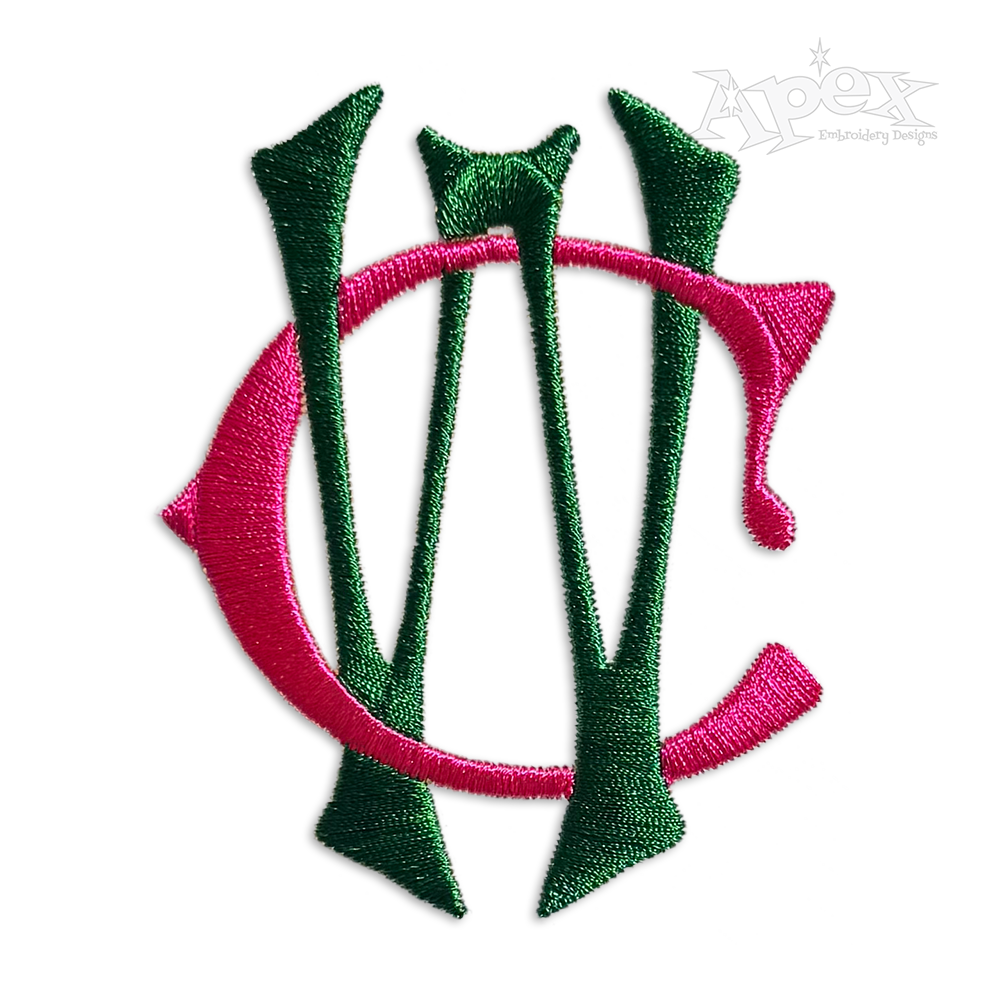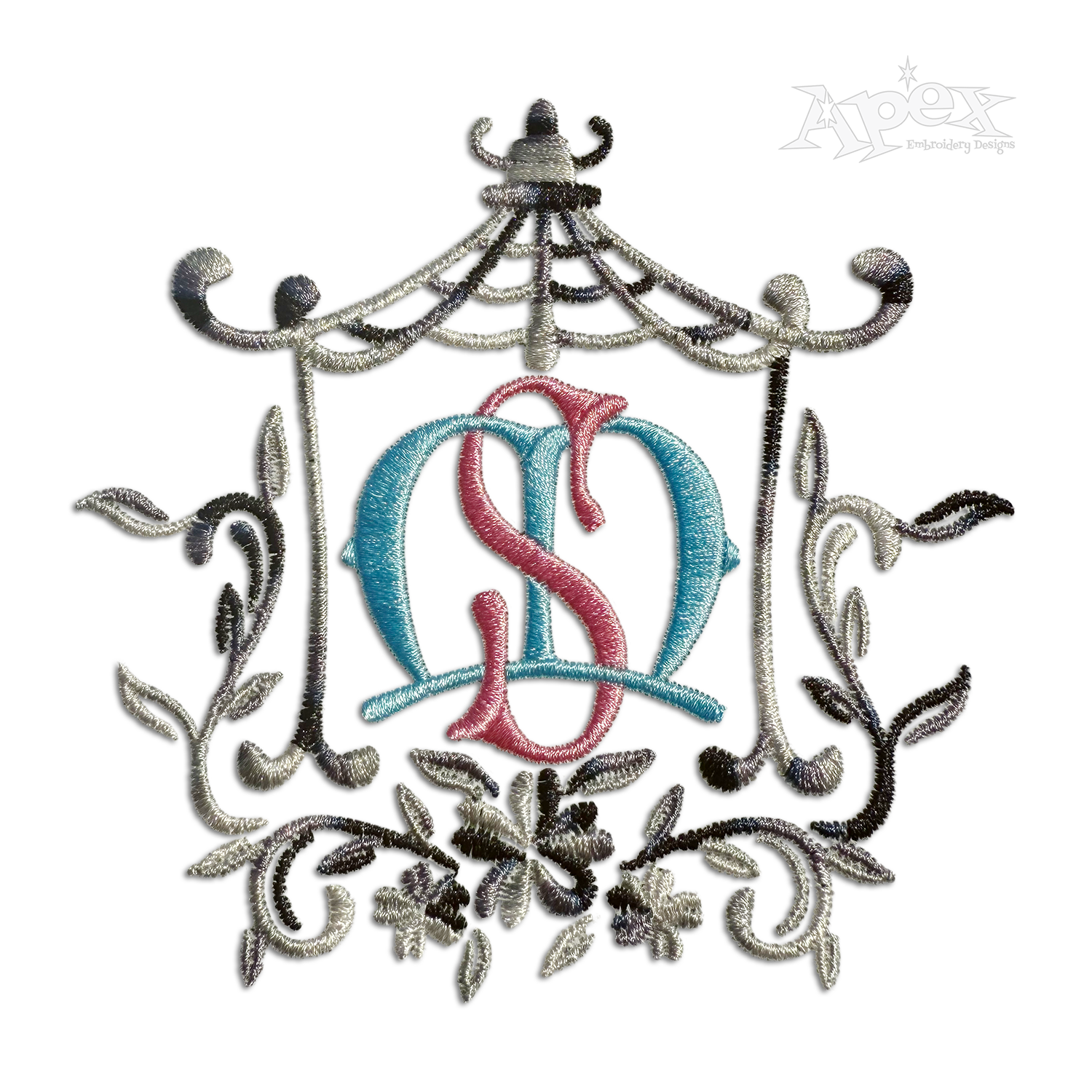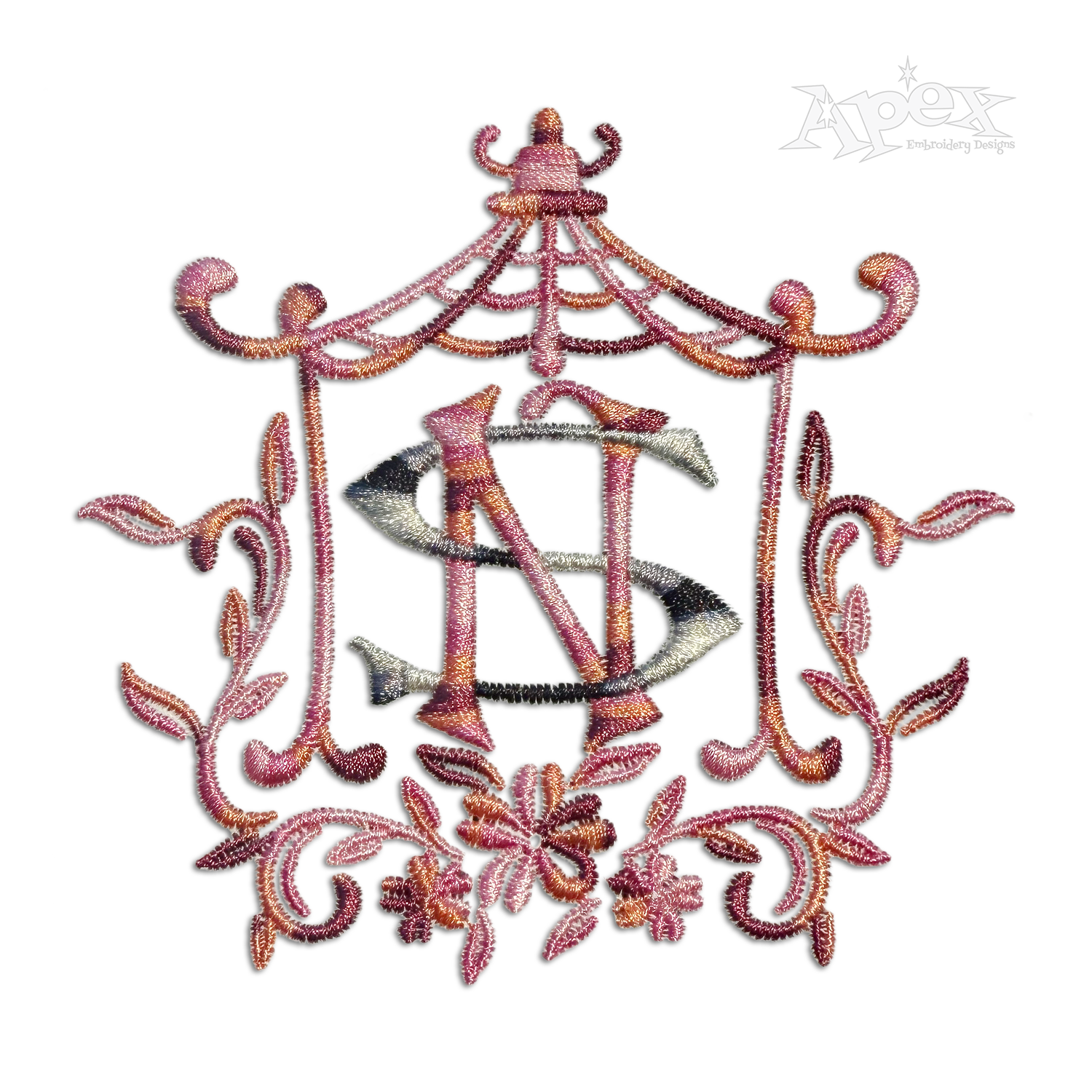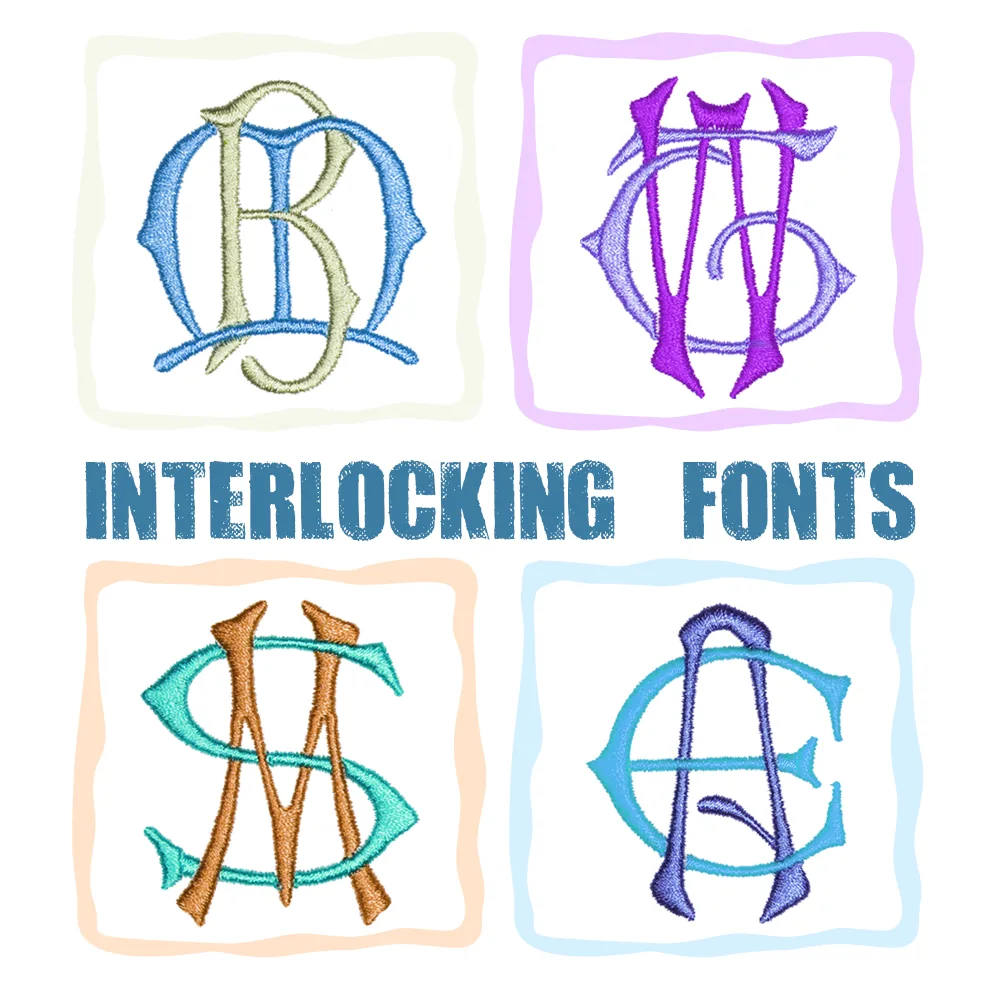
Raven True Interlocking Monogram Embroidery Font
Conceived at the intersection of historical heraldry and graceful modern romance, the Raven True Interlocking Monogram captures the poetic beauty of two initials interwoven in timeless symmetry. When digitizing an interlocking duogram, the challenge lies in creating the visual illusion of seamless depth—where calligraphic flourishes glide effortlessly over and behind one another without stitch collision or unnatural bulk. Every curve and hairline taper has been charted by hand, giving your personalized gifting and bespoke heirlooms an unmistakable air of bespoke luxury.
Raven Interlocking Monogram Craft & Letterform Details
True interlocking monograms require far more than merely overlapping two vector letters; they demand meticulous stitch planning. In the Raven alphabet, the letterforms feature dramatic calligraphic weight variation, with sweeping curves that narrow into razor-sharp terminals. We sculpted each crossover point with dedicated stitch breaks and deliberate push-and-pull compensation, allowing the threads to nest together naturally without fabric distortion or stitch piling.
For the 1-inch through 3-inch sizes, our satin stitch paths are calibrated to maintain rich thread volume while protecting fine fabric fibers. In the larger 4-inch to 6-inch sizes, the shift to a structured underlay and refined fill stitch ensures that broader expanses lay flat, supple, and beautifully textured against heavier textiles, preserving the majestic, romantic presence of the design across any canvas.